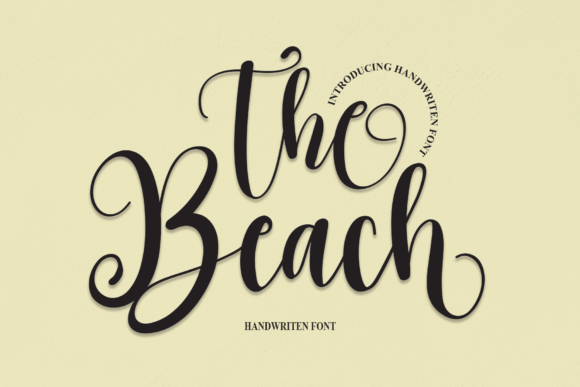
About The Beach Font
The Beach is a beautiful and romantic handwritten font. It is perfect for wall displays, wedding invitations, social media post logos, advertisements, product packaging, product designs, labels, photography, watermarks, invitations, stationery, and any project that requires a handwritten taste.